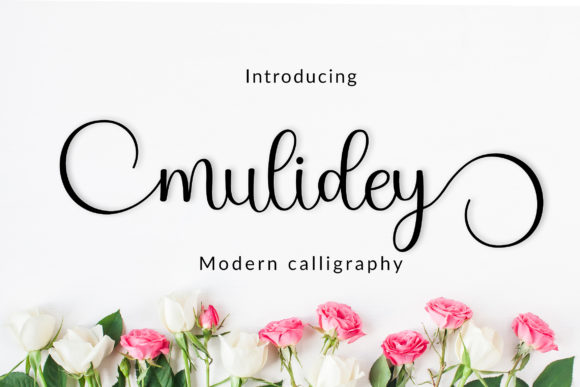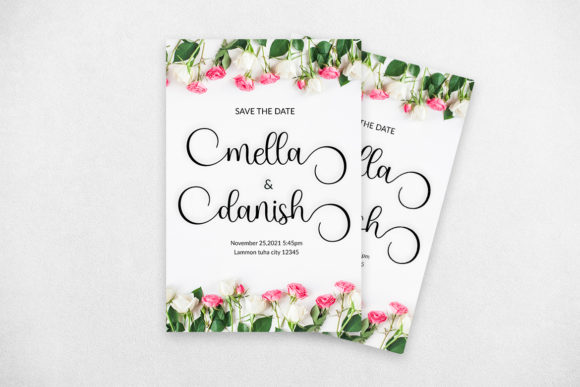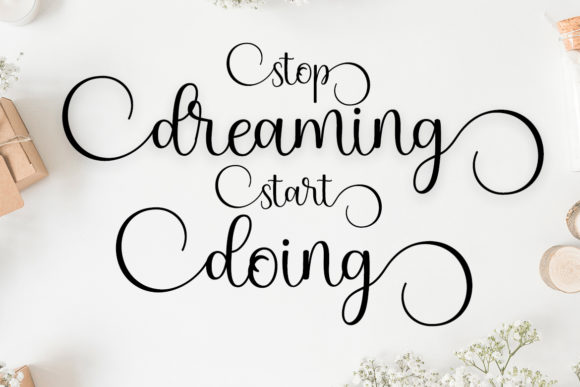
About Mulidey Font
Mulidey is a fabulous handwritten font. It features a varying baseline, smooth lines, gorgeous glyphs and stunning alternates. It’s perfect for wedding invitations, greeting cards, branding, product packaging and much more!